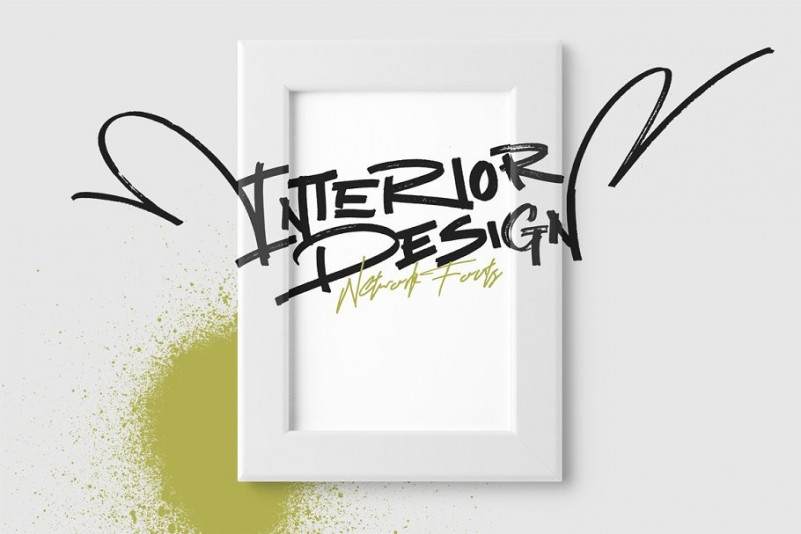
Network Script Font
Network Font is a handbrush typeface. This font made from original handwriting using brush pen then making it digital. So you can create a stunning and natural hand lettering quickly and easily. It’s designed and shared by Yasir Ekinci. Network Script, carefully selected from hundreds of letters. Signature styled Network Script perfectly fit next to the Network Font. Besides all this, the Network Swashes Font is designed to customize your designs.